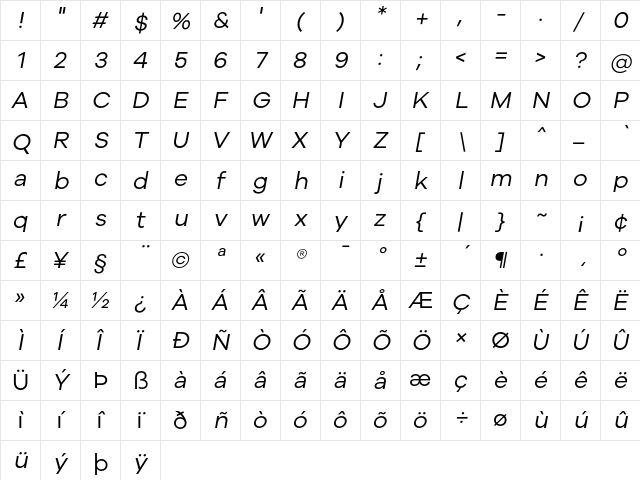
Galyon Italic Italic
| Foundry | WOLVE |
| Designer | WOLVE |
Design Context for Galyon Italic Typeface
Galyon Italic takes a measured approach to typography — its balanced proportions and neutral character make it a reliable workhorse for both digital and print work. The dynamic lean of this cut emphasises speed and emphasis in any layout.